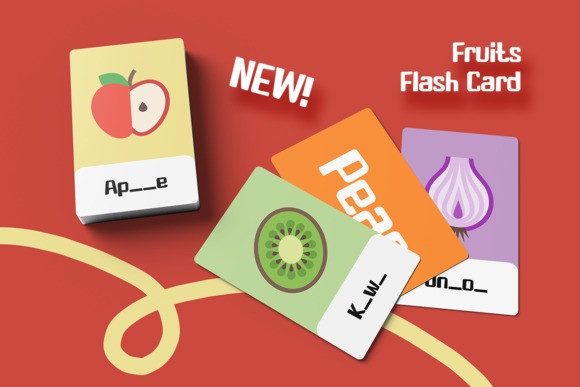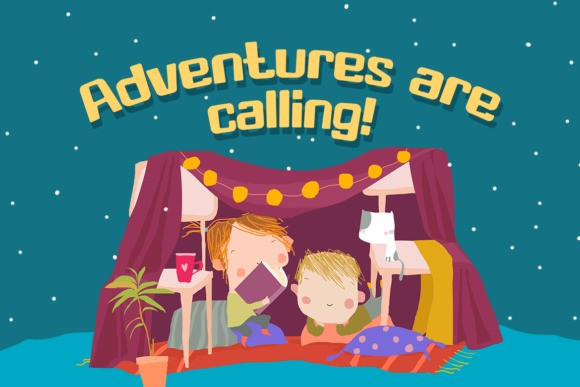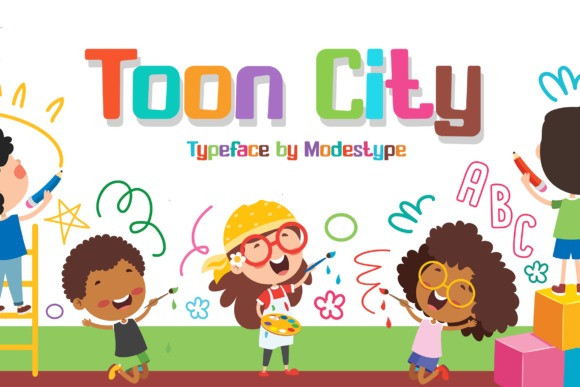
Toon City Font
Toon City Font is a fun, cool and friendly display font. Whether you’re using it for crafts, digital design, presentations, or making greeting cards, this font has the potential to become your favorite go-to font, no matter the occasion!